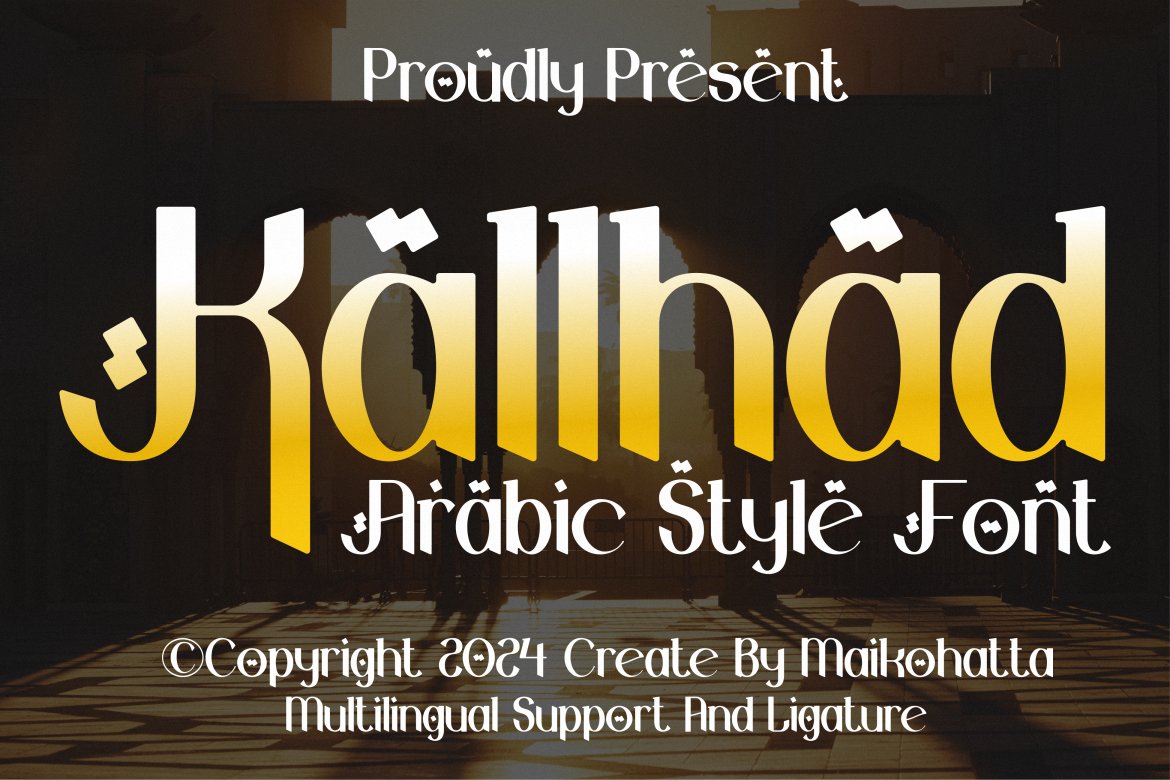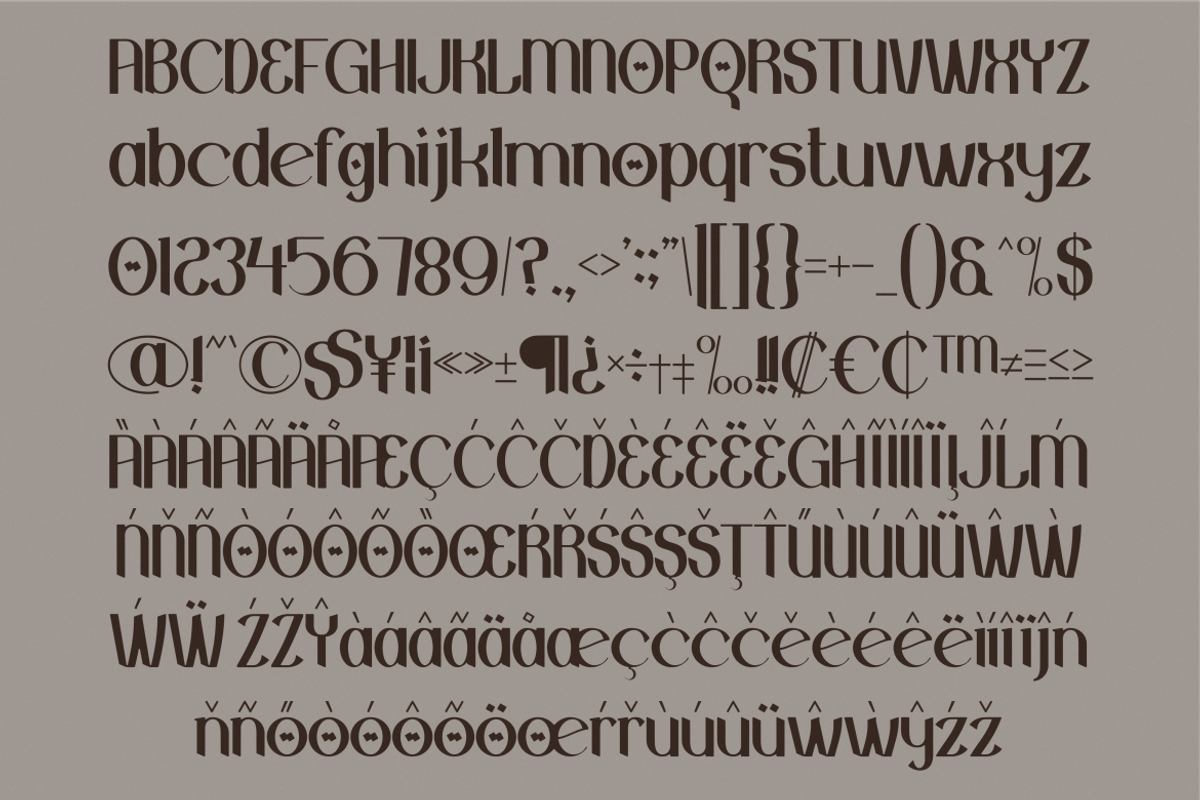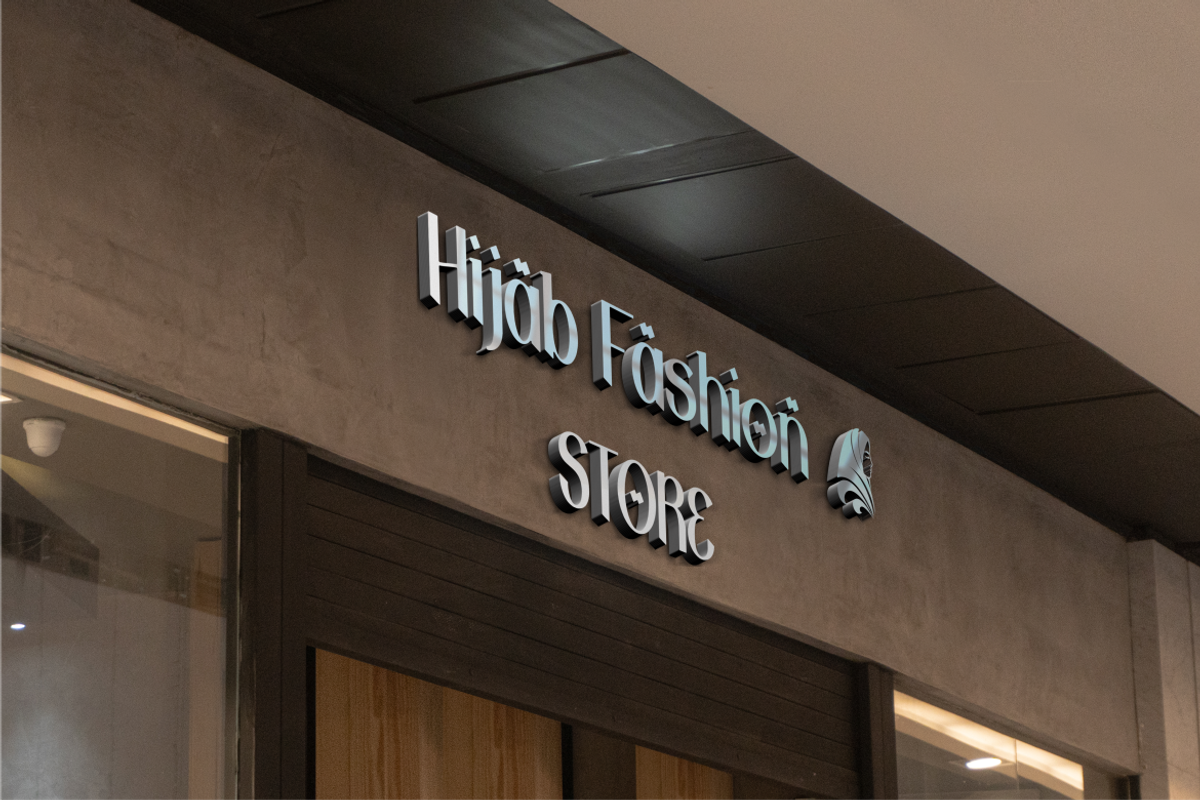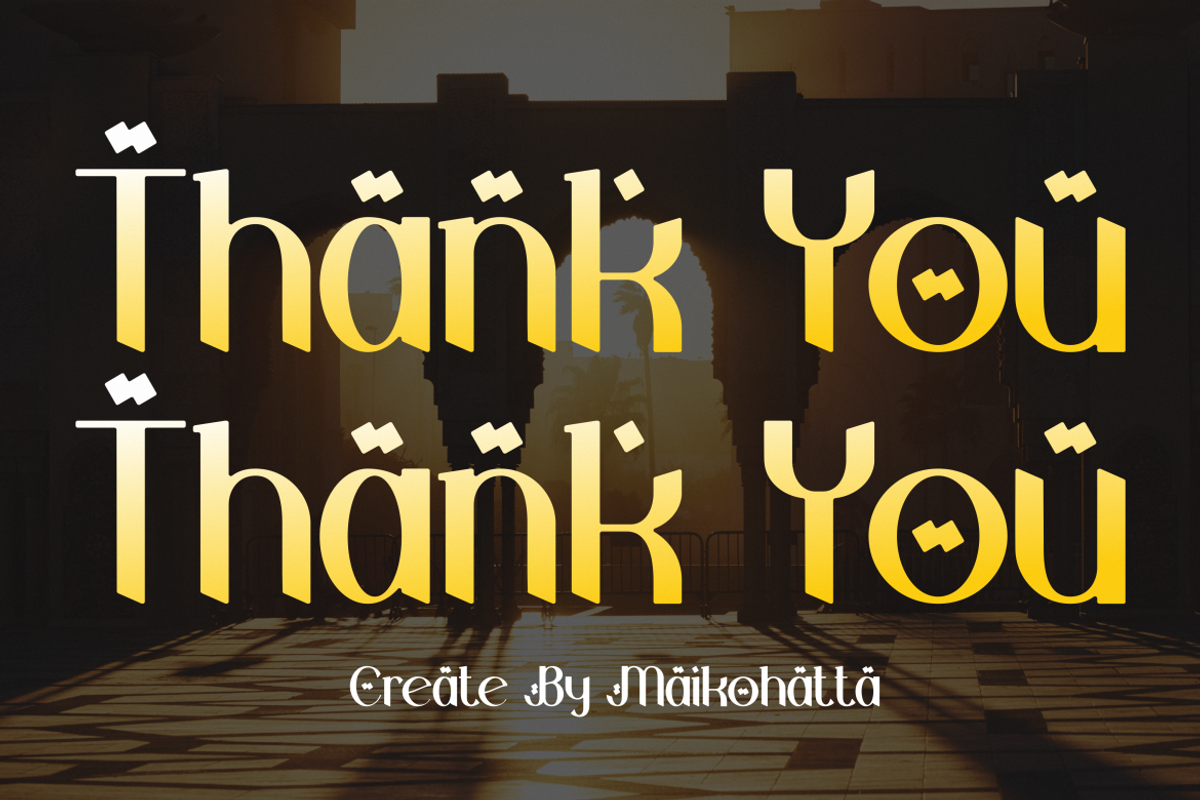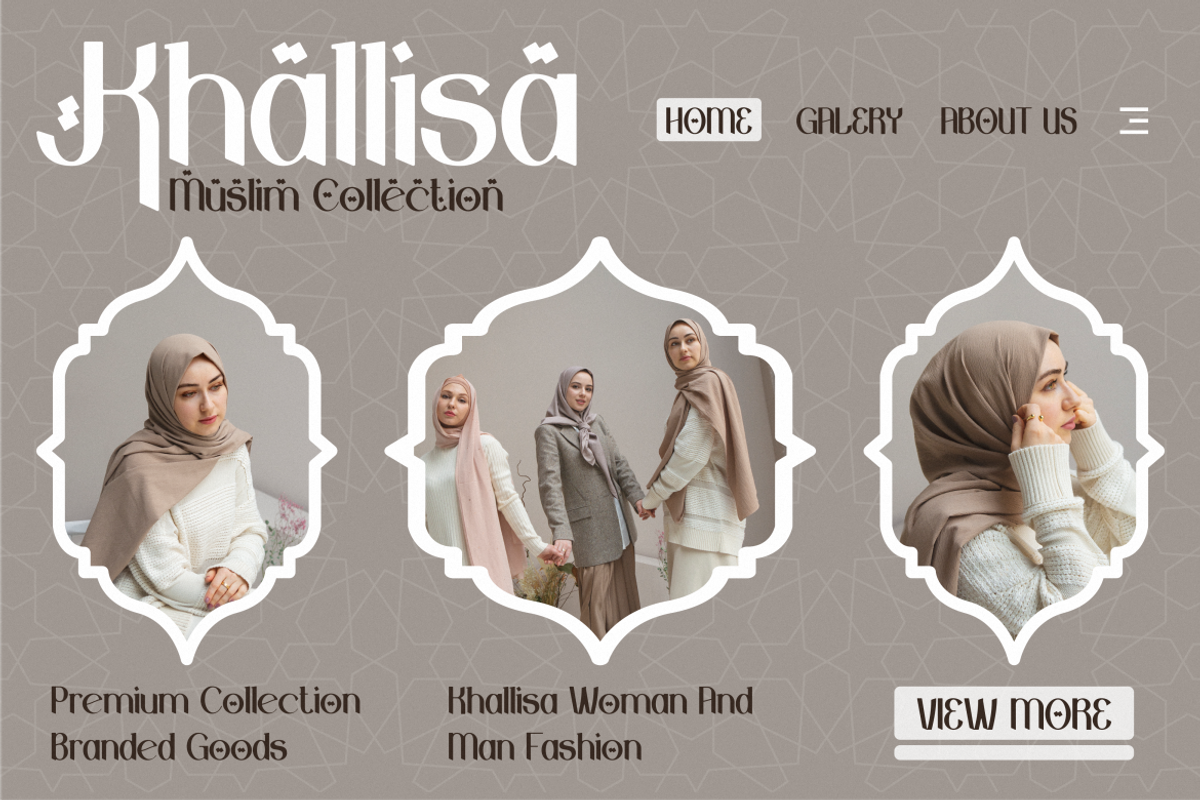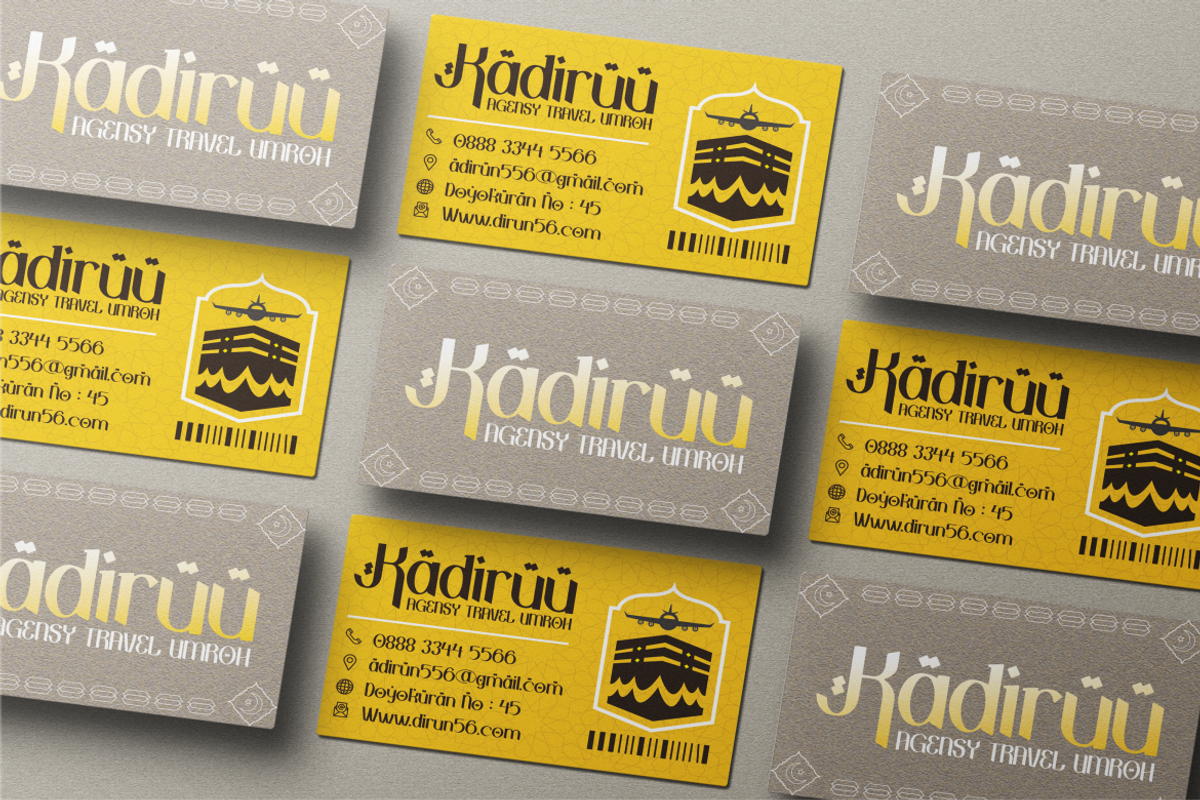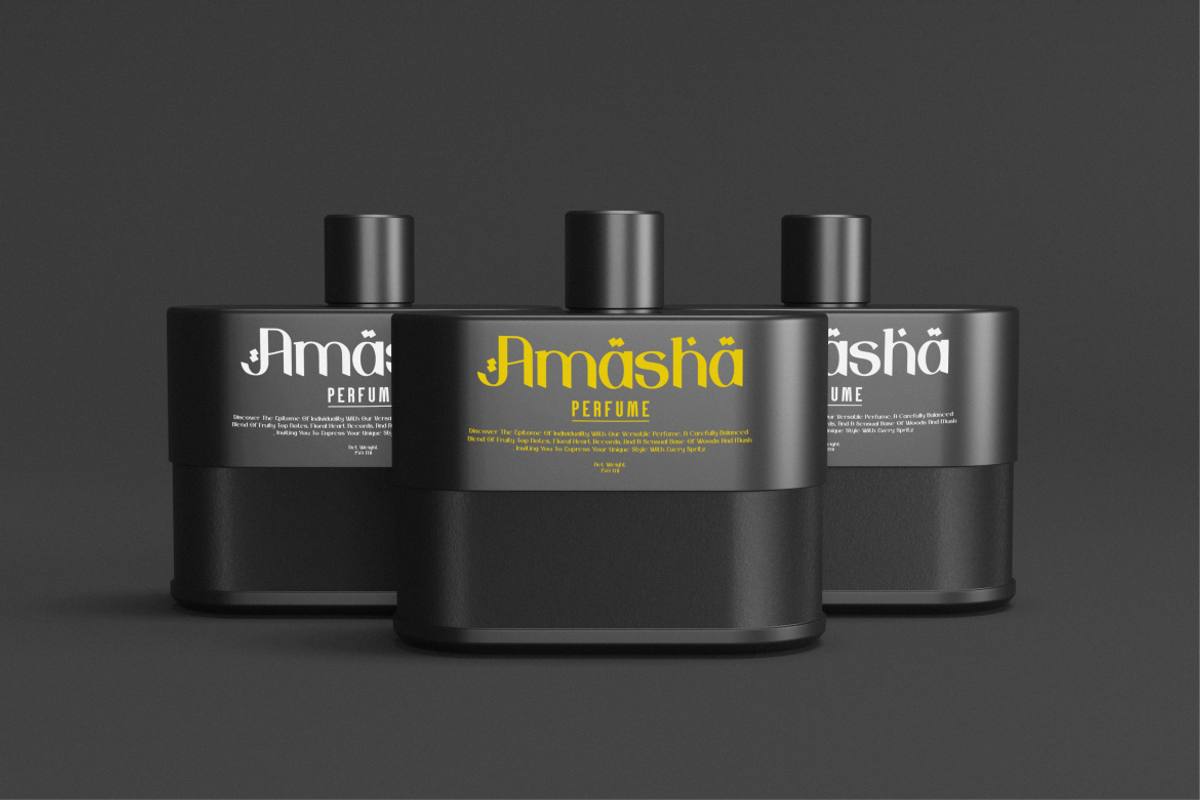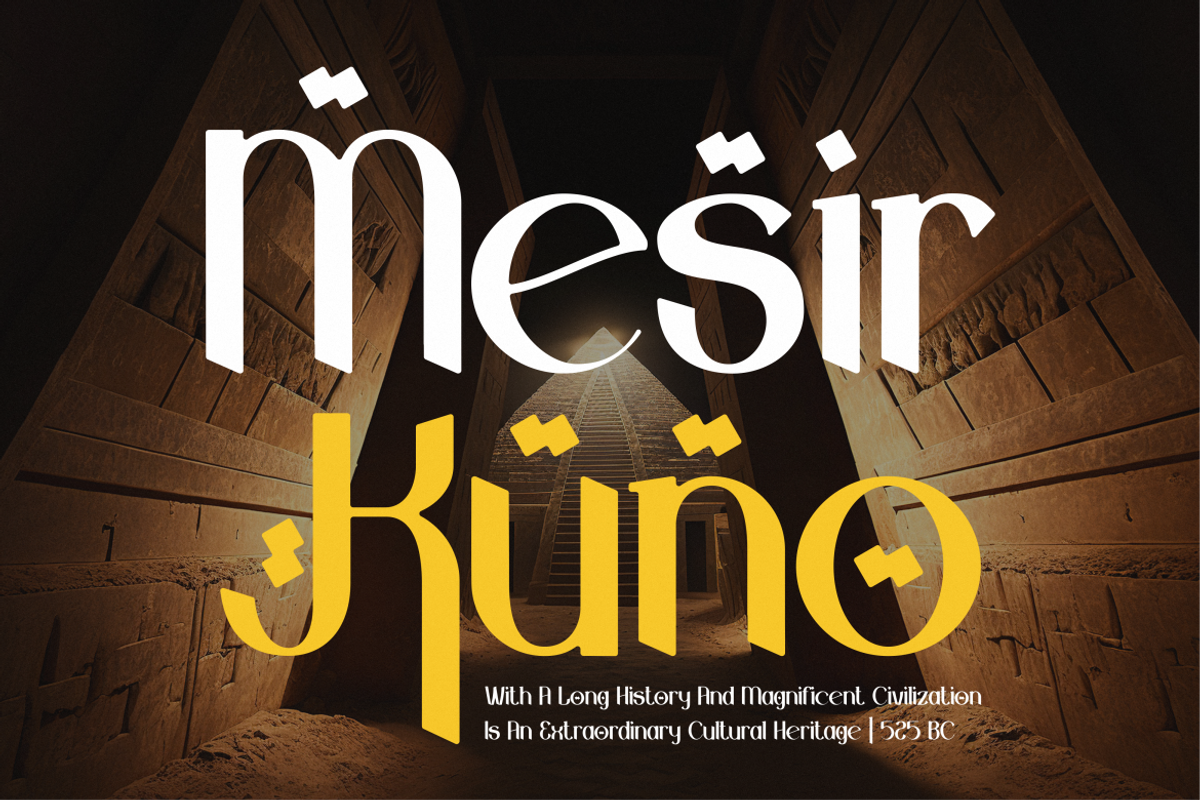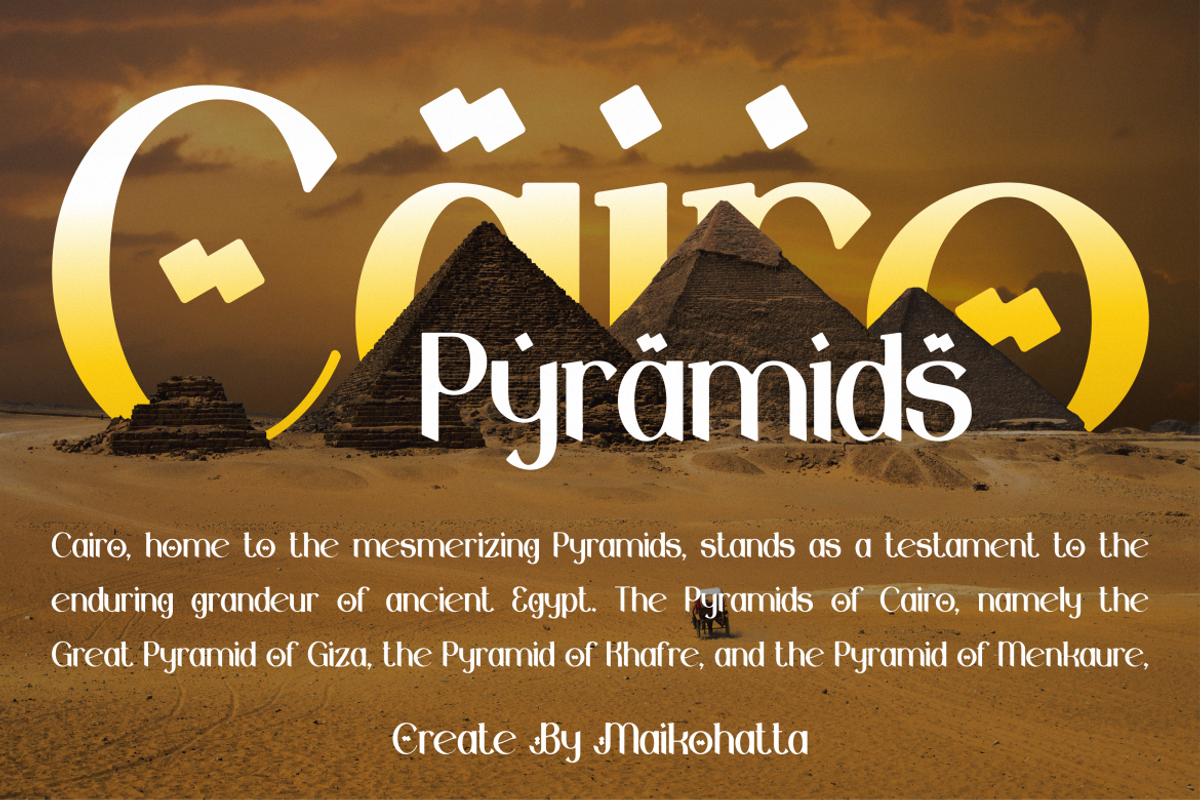
Kallhad - Arabic Style Font
Introducing our new product Kallhad - Arabic Style Font
Kallhad Modern Font is a bold and authentic display font. The font is suitable for any branding project like logo, Template Design, esport, and many more. outstanding in a wide range of contexts.